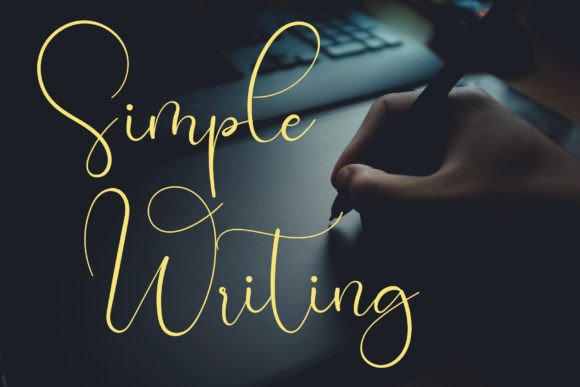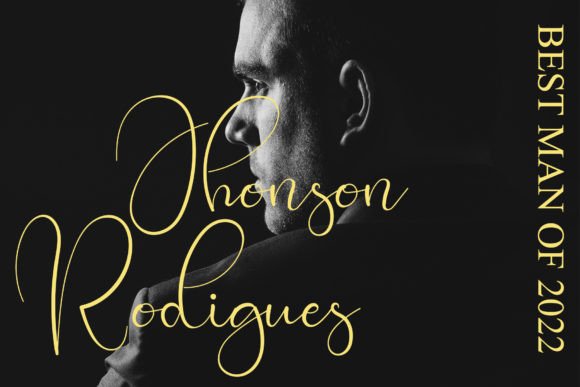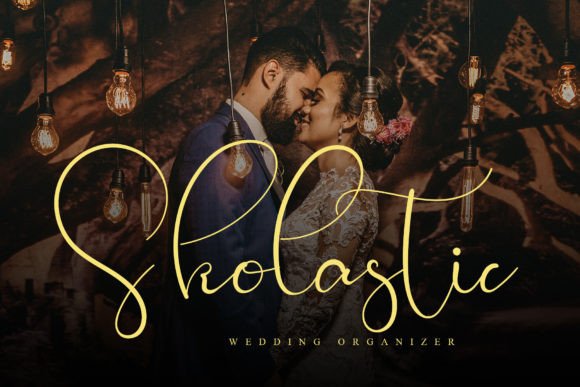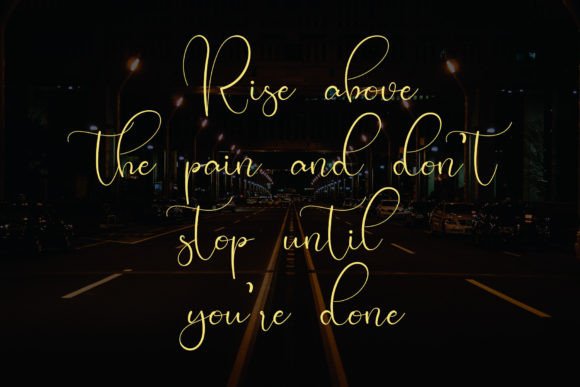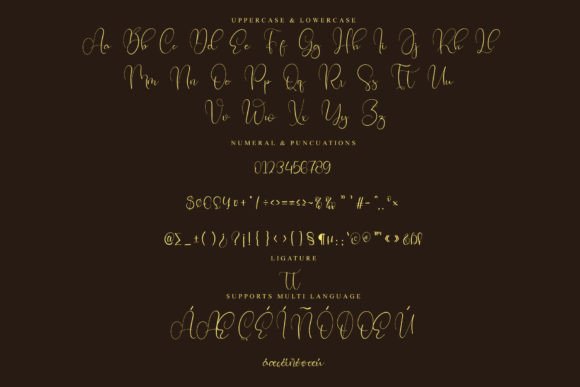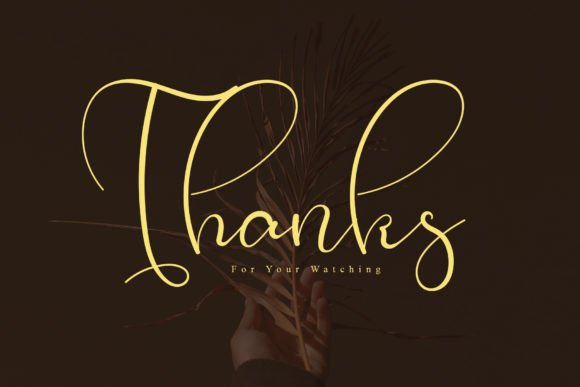
Batikah Font: Elevate Your Designs with Timeless Elegance
In the world of typography, few fonts manage to capture the essence of classic calligraphy while still exuding a modern vibe. Batikah Font is one such gem that seamlessly blends traditional elegance with contemporary flair, making it a must-have for designers and crafters alike. In this article, we’ll delve into the intricacies of Batikah Font, exploring its unique characteristics, design inspiration, and the myriad ways it can elevate your projects.
The Inspiration Behind Batikah Font
Batikah Font draws its inspiration from timeless classic calligraphy, a style that has been revered for centuries for its beauty and sophistication. The creators of Batikah have meticulously studied the fluid lines, precise letterforms, and the overall harmony of traditional calligraphy, using these elements as a foundation for their design. The result is a font that not only pays homage to its predecessors but also introduces a fresh, modern perspective.
Design Characteristics of Batikah Font
Batikah Font is described as a stylish handwritten font with a contemporary atmosphere and impeccable form. This description encapsulates the font’s ability to marry traditional calligraphic elements with a modern, approachable feel. Key characteristics of Batikah Font include:
- Balanced and Varied: The font boasts a balanced design, ensuring that each letter and word flows harmoniously into the next. Its varied letterforms add a layer of uniqueness to text, making it stand out.
- Contemporary Atmosphere: Despite its classic roots, Batikah Font carries a contemporary vibe that aligns well with modern design trends. This makes it versatile enough to be used in a wide range of projects, from branding and advertising to packaging and digital media.
- Impeccable Form: The design of Batikah Font focuses on impeccable form, ensuring that each character is not only aesthetically pleasing but also highly legible.
Applications of Batikah Font
The versatility of Batikah Font makes it suitable for various design applications. Here are some of the ways designers and crafters can utilize this elegant font:
- Branding and Logo Design: Batikah Font’s unique blend of classic and modern elements makes it an excellent choice for branding and logo design. It can help create a memorable and sophisticated brand identity.
- Stationery and Invitations: For crafters and designers who specialize in stationery and invitations, Batikah Font can add a touch of elegance and refinement. It’s perfect for wedding invitations, thank you cards, and more.
- Digital Media: In the realm of digital media, Batikah Font can enhance the visual appeal of websites, social media graphics, and digital advertisements. Its legibility and stylish appearance make it an excellent choice for digital content.
- Packaging Design: Batikah Font can also be used in packaging design to give products a distinctive and premium look. Its classic yet modern feel can help products stand out on store shelves.
Why Choose Batikah Font?
Choosing Batikah Font for your design projects comes with several advantages:
- Unique Aesthetic: Batikah Font offers a unique aesthetic that combines the best of classic calligraphy with modern design sensibilities.
- Versatility: Its versatility means it can be used across various design projects, making it a valuable addition to any designer’s toolkit.
- Elegance and Sophistication: Batikah Font brings an air of elegance and sophistication to any project, helping designers create visually appealing and impactful designs.
Batikah Font stands out in the world of typography for its beautiful blend of classic calligraphy and modern design. Its balanced and varied letterforms, impeccable form, and contemporary atmosphere make it an excellent choice for designers and crafters looking to elevate their projects. Whether you’re working on branding, stationery, digital media, or packaging, Batikah Font offers a stylish and sophisticated solution. By incorporating Batikah Font into your design repertoire, you can create stunning, memorable, and impactful designs that resonate with your audience.